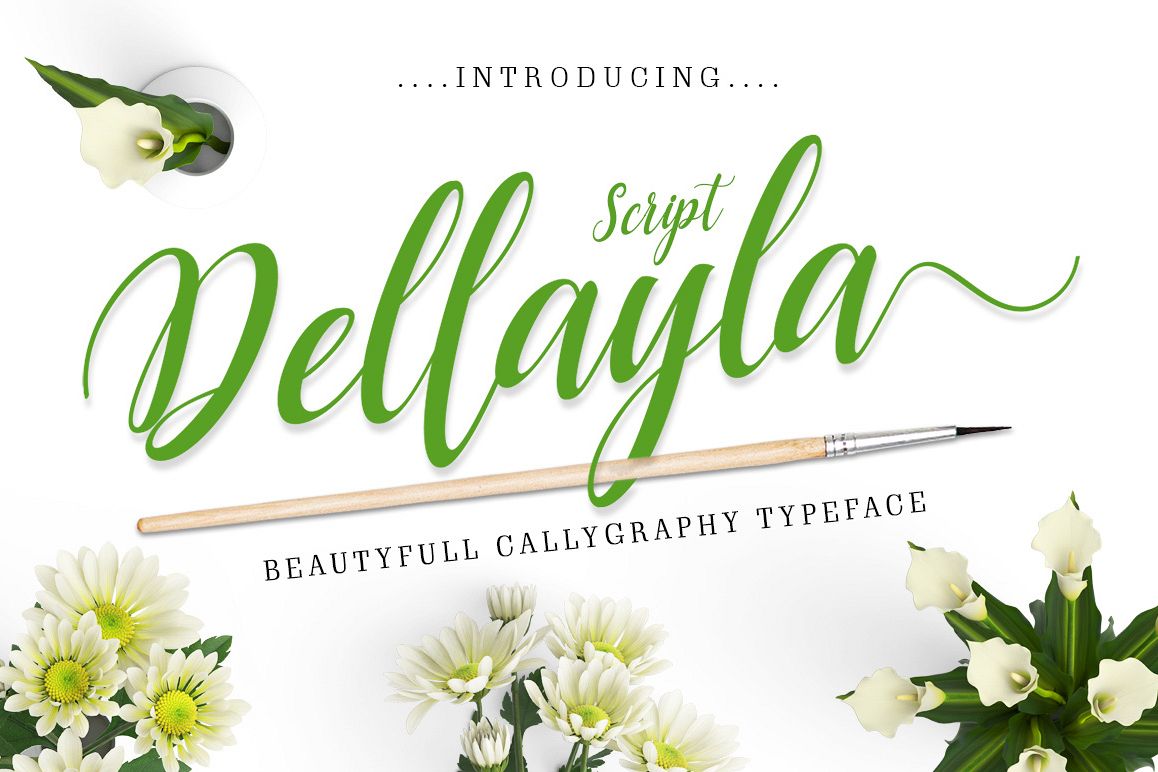
Introducing Dellayla Script Dellayla Script a new fresh & modern script with a handmade calligraphy style, decorative characters and a dancing baseline! So beautiful on invitation like greeting cards, branding materials, business cards, quotes, posters, and more!!Dellayla Script come with 235+ glyphs. The alternative characters were divided into several Open Type features such as Swash, Stylistic Sets, Stylistic Alternates, Contextual Alternates. The Open Type features can be accessed by using Open Type savvy programs such as Adobe Illustrator, Adobe InDesign, Adobe Photoshop Corel Draw X version, And Microsoft Word. And this Font has given PUA unicode (specially coded fonts). so that all the alternate characters can easily be accessed in full by a craftsman or designer.Dellayla Script Features :Uppercase & Lowercase International Languange & Symbols Support Punctuation & Number PUA Unicode Range Standard Stylistic Alternates Stylistic Set 1-9 Character Variant Contextual. The ZIP file are include the following : Dellayla Script .OTF Dellayla Script .TTF Dellayla Script Web Font (eot, svg, woff, woff2) If you don't have a program that supports OpenType features such as Adobe Illustrator and CorelDraw X Versions, you can access all the alternate glyphs using Font Book (Mac) or Character Map (Windows).For use in office word, you all can read the following article.http://www.magpiepaperworks.com/blog/using-opentype-fonts-in-microsoft-word/ To Access Alternate Characters Click The Link Below:Adobe illustrator CS https://www.youtube.com/watch?v=geL0Ye02Ryk How to access alternates in Adobe illustrator CC https://www.youtube.com/watch?v=V25yiUh8BcE How to access alternates in Ms Word https://www.youtube.com/watch?v=HxkhZiCuwEw How to access alternates in Coreldraw X7 https://www.youtube.com/watch?v=UBVsufJjons How to access alternates in Adobe Photoshop CC https://www.youtube.com/watch?v=BYKXl58AdNY How to access alternates in Indesign CS https://www.youtube.com/watch?v=HgZTCxKG14Q How to access alternates in another software https://fontbundles.net/tutorials If you have any question, don't hesitate to contact me by email  Thanks and happy designing :-) Thank You for purchase!